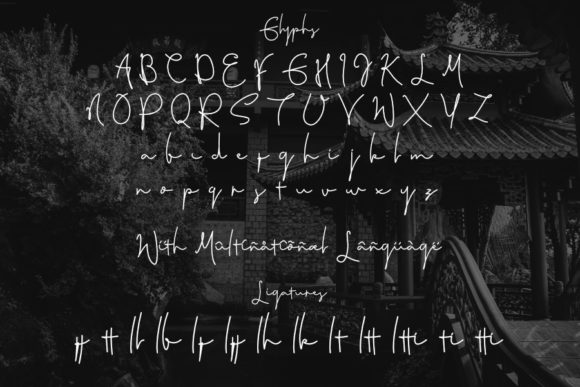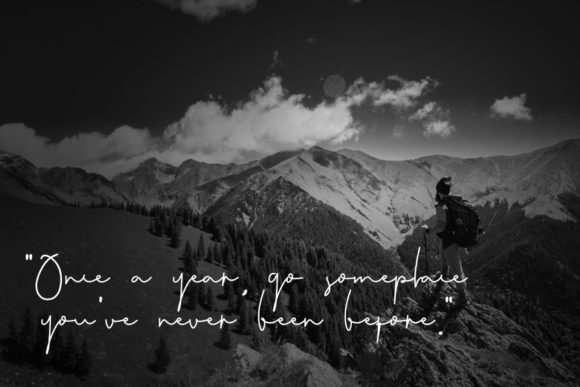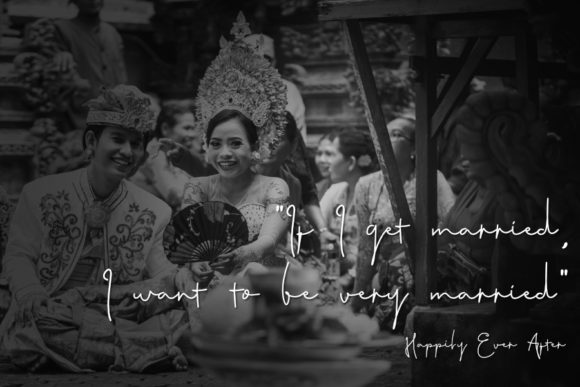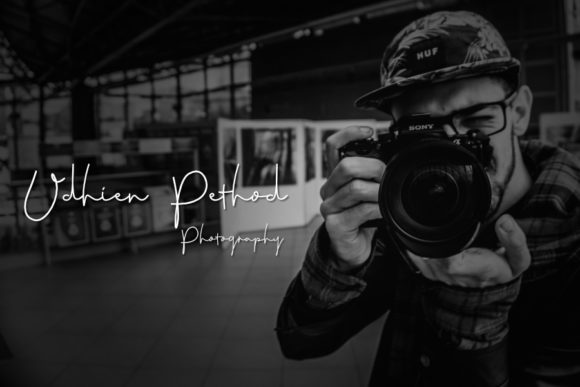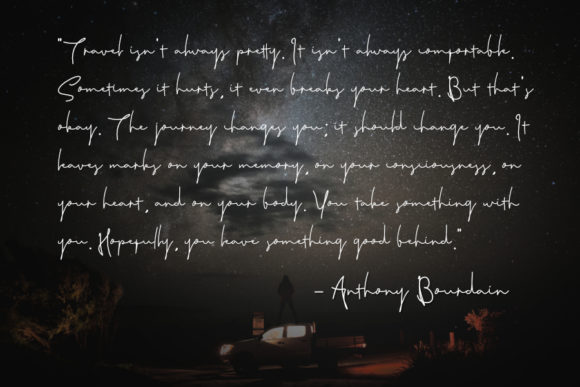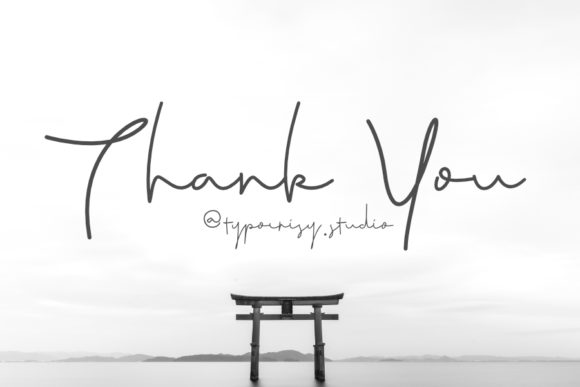
Asttingkara Font: The Perfect Choice for Romantic and Personalized Designs
Are you a designer or crafter looking for a font that can add a touch of romance and personality to your designs? Look no further than the Asttingkara font. This simple, thin, and stylish handwritten font is perfect for creating beautiful and eye-catching designs that require a delicate and joyful touch.
What is Asttingkara Font?
Asttingkara is a modern handwritten font that is designed to be dainty and joyful. Its thin and stylish strokes make it perfect for writing wedding invitations, cards, and other designs that require a romantic and personalized touch. The font is highly legible and can be used for a variety of design projects, from digital to print.
Key Features of Asttingkara Font
- Simple and Thin Strokes: Asttingkara font features simple and thin strokes that give it a delicate and elegant look.
- Handwritten Style: The font has a handwritten style that makes it perfect for creating personalized and romantic designs.
- Highly Legible: The font is highly legible, making it easy to read and understand.
- Versatile: Asttingkara font can be used for a variety of design projects, from digital to print.
Uses of Asttingkara Font
Asttingkara font is perfect for a variety of design projects, including:
- Wedding Invitations: The font’s romantic and elegant style makes it perfect for creating beautiful wedding invitations.
- Cards: Asttingkara font can be used to create beautiful and personalized cards for special occasions.
- Digital Designs: The font can be used for digital designs, such as social media graphics, blog posts, and website headers.
- Print Designs: Asttingkara font can be used for print designs, such as brochures, flyers, and posters.
Why Choose Asttingkara Font?
There are many reasons why designers and crafters choose Asttingkara font for their designs. Here are a few:
- Unique and Elegant Style: Asttingkara font has a unique and elegant style that sets it apart from other fonts.
- Easy to Read: The font is highly legible, making it easy to read and understand.
- Versatile: Asttingkara font can be used for a variety of design projects, from digital to print.
- Romantic and Personalized: The font’s romantic and personalized style makes it perfect for creating designs that require a special touch.
Tips for Using Asttingkara Font
Here are a few tips for using Asttingkara font in your designs:
- Use it for Headings and Titles: Asttingkara font is perfect for headings and titles, as it adds a touch of elegance and sophistication.
- Pair it with Other Fonts: The font can be paired with other fonts to create a unique and interesting design.
- Use it for Digital and Print Designs: Asttingkara font can be used for both digital and print designs, making it a versatile font for designers and crafters.
Asttingkara font is a beautiful and elegant font that is perfect for designers and crafters who want to add a touch of romance and personality to their designs. Its simple, thin, and stylish strokes make it perfect for creating beautiful and eye-catching designs that require a delicate and joyful touch. With its highly legible style and versatile uses, Asttingkara font is a great choice for a variety of design projects.
Whether you’re creating wedding invitations, cards, or digital designs, Asttingkara font is the perfect choice. So why not give it a try and see how it can elevate your designs to the next level?